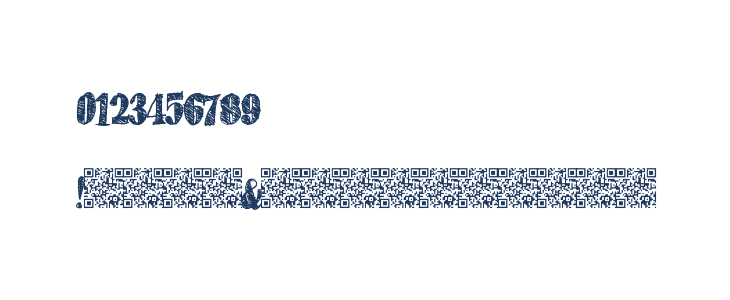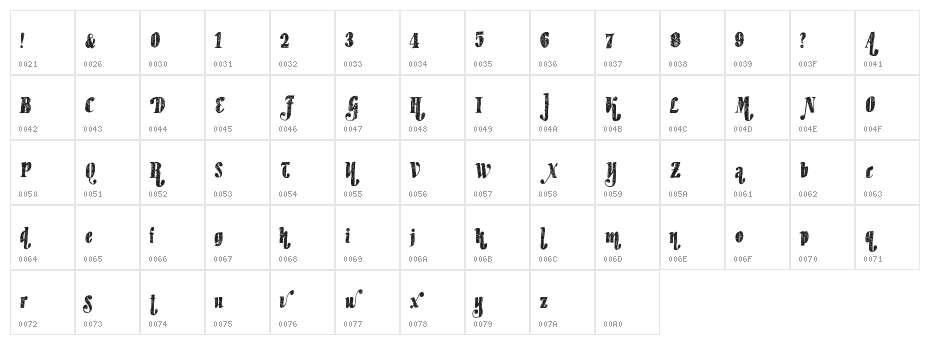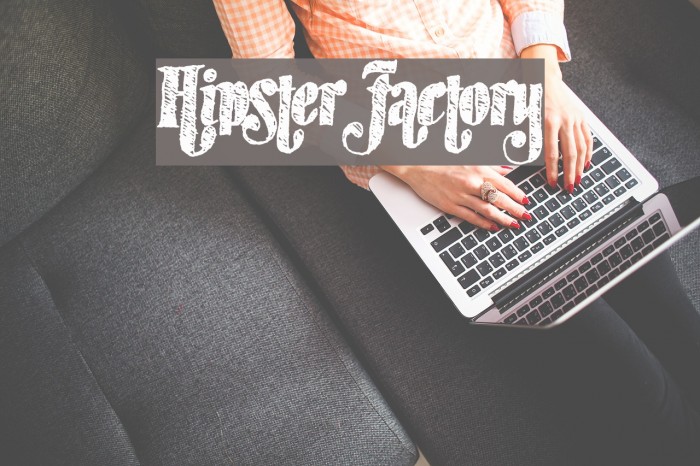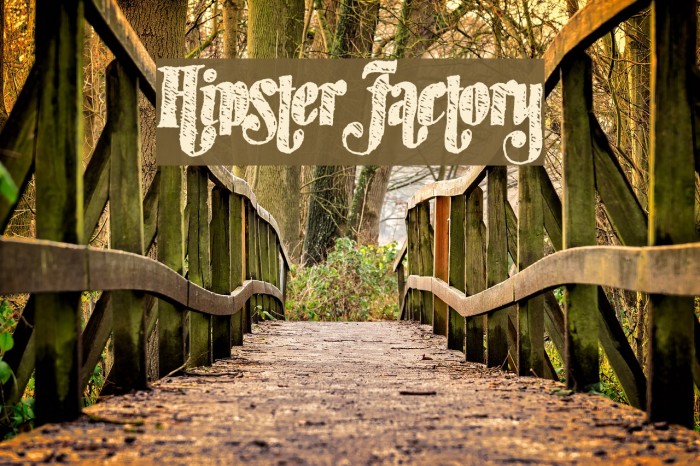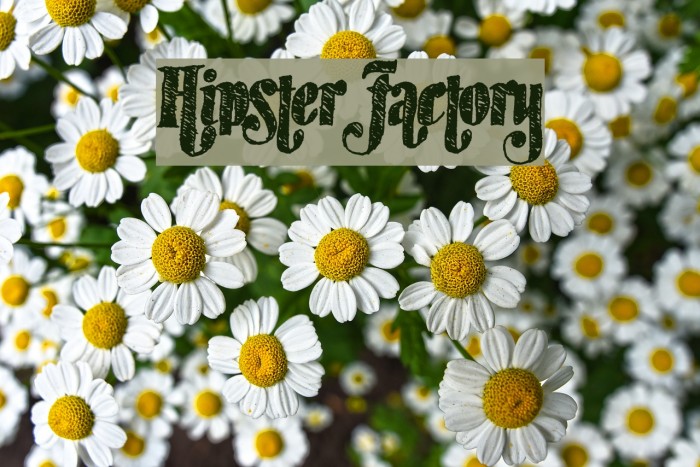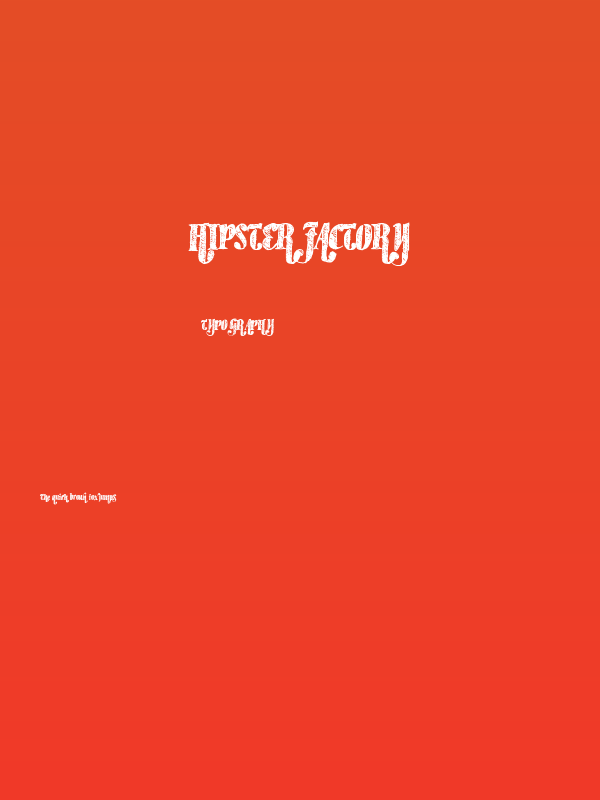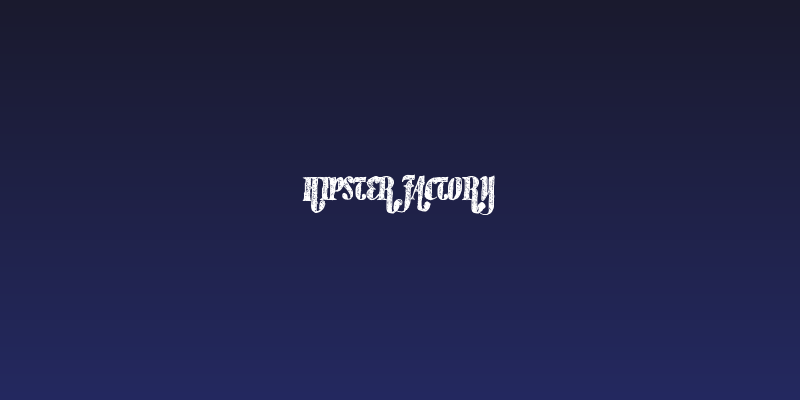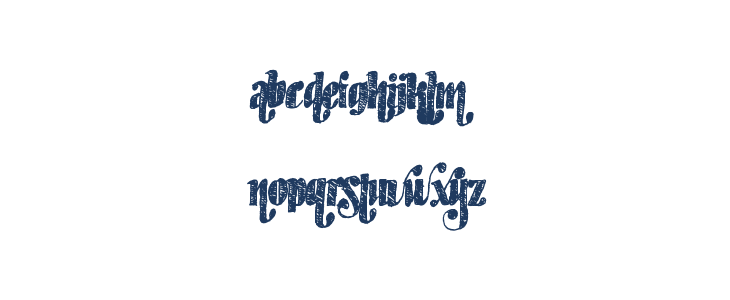
HipsterFactory Font
HipsterFactory Description
This font features a bold, decorative style with a vintage flair. The characters are intricately designed with a textured, distressed appearance, giving them a handcrafted feel. The uppercase letters are particularly ornate, with exaggerated serifs and flourishes that add to the overall decorative nature. The lowercase letters maintain this intricate design, though they are slightly more subdued. Numbers and special characters follow the same design principles, ensuring a cohesive look across all glyphs. The font's unique style makes it stand out, ideal for projects that require a touch of elegance and creativity.
| Overall Style | Vintage, Decorative |
| Proposed Projects | Ideal for branding, poster design, album covers, and any project needing a vintage or artistic touch. |